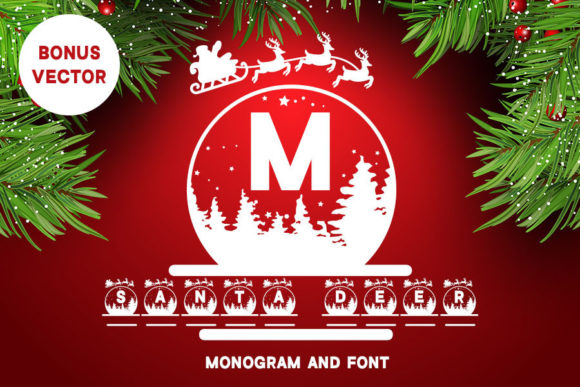
Feast your eyes upon Monogram Santa Deer, a font so enchanting, it will bestow upon your designs an air of Christmas magic! This decorative font is crafted with meticulous care, every letter boasting intricate details that bring to mind the wonder of the holiday season.
Imagine creating Christmas cards or invitations that sparkle with festive cheer, thanks to Monogram Santa Deer's charming presence. The children in your life will be enraptured by games and activities adorned with this playful font, their eyes twinkling with delight. And when you seek a touch of loveliness for any project, Monogram Santa Deer stands ready to add a sprinkle of enchantment.
But wait, there's more! Monogram Santa Deer is not merely a font; it's a gateway to a world of creative possibilities. Unleash your imagination and let this font guide you through enchanting forests, where Santa's sleigh glides across the snowy landscapes, and reindeer dance with joy. Create whimsical designs that capture the spirit of Christmas, and let the magic of Monogram Santa Deer work its wonders.
Don't settle for ordinary fonts that lack personality. Embrace the magic of Monogram Santa Deer and elevate your designs to new heights. Let this font be your secret weapon, adding a touch of wonder to everything you create.